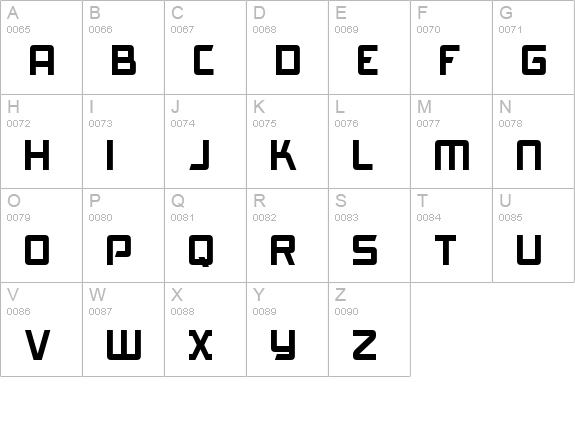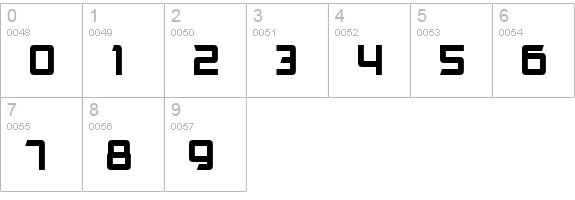
Hartland Regular Font Details
Hartland Regular is the standard, neutral variant in the Hartland typeface family \xE2\x80\x94 well suited to general body text, paragraphs, and standard typographic work.
Hartland Regular font is a versatile and elegant typeface that is perfect for a wide range of design projects. With its clean and modern lines, this font exudes a sense of professionalism and sophistication. Whether you're creating a logo, designing a website, or crafting a beautiful invitation, Hartland Regular font will elevate your design to the next level. What sets Hartland Regular font apart is that it is not only visually stunning, but it is also free to use. Yes, you read that right - this remarkable font is freely available to download at FontsMarket.com. This means that you can add a touch of elegance to your projects without having to spend a dime. Featuring a timeless appeal, Hartland Regular font is suitable for both digital and print applications. Its legibility and readability make it a great choice for body text, headlines, and even large-scale designs. The carefully crafted letterforms of Hartland Regular font ensure that each character flows seamlessly into the next, creating a harmonious and visually pleasing reading experience. Designed with attention to detail, Hartland Regular font offers a wide range of weights and styles to choose from. Whether you prefer a classic and traditional look or a more contemporary and edgy feel, this font has got you covered. Its versatility makes it a favorite among designers and creatives who are looking for a font that can adapt to various design styles and aesthetics. With its generous character set, Hartland Regular font supports multiple languages and special characters, ensuring that your message can be effectively communicated to a global audience. Its well-defined curves and balanced proportions give each letter a sense of stability and elegance, adding a touch of sophistication to any design. So why wait? Download Hartland Regular font for free at FontsMarket.com and unlock a world of possibilities. Whether you're a professional designer or an enthusiast looking to explore the world of typography, this font is sure to become a valuable addition to your collection. Don't miss out on the opportunity to enhance your projects with this exceptional font - get your hands on Hartland Regular font today.